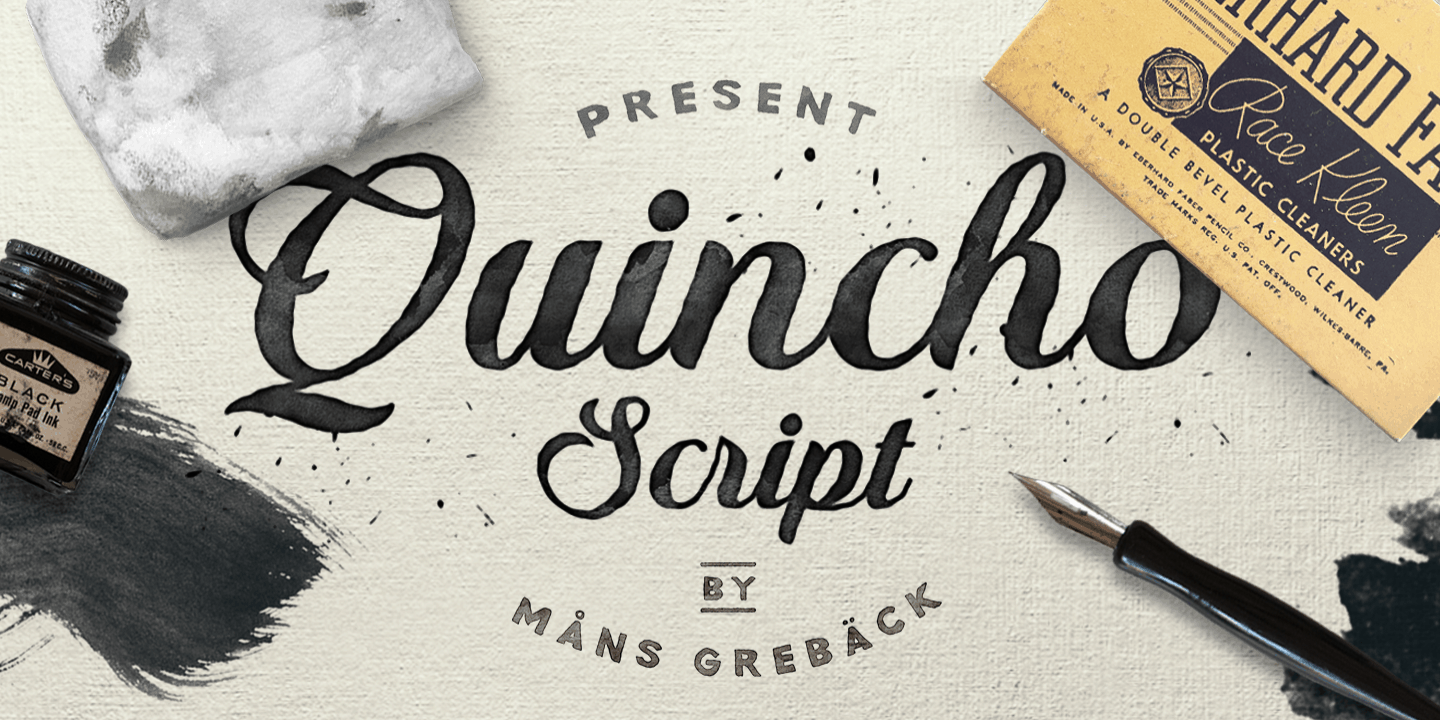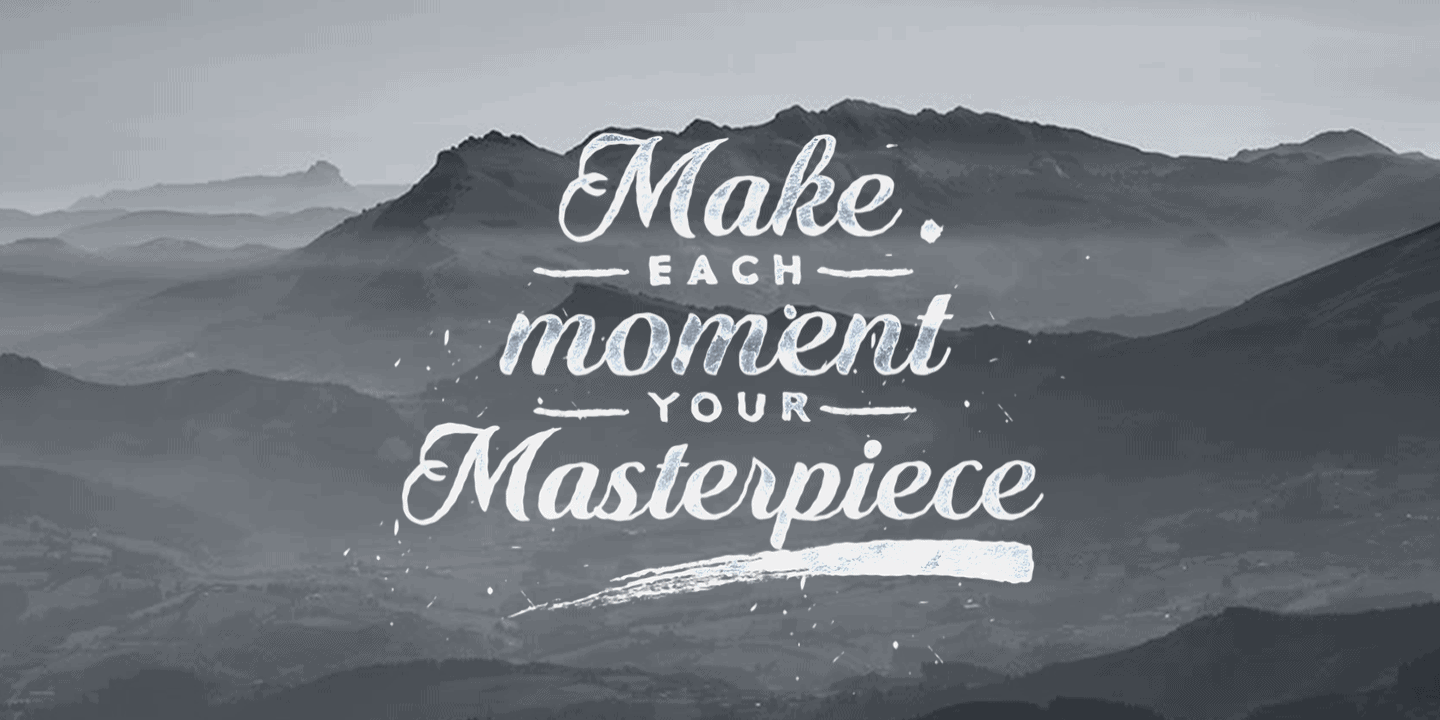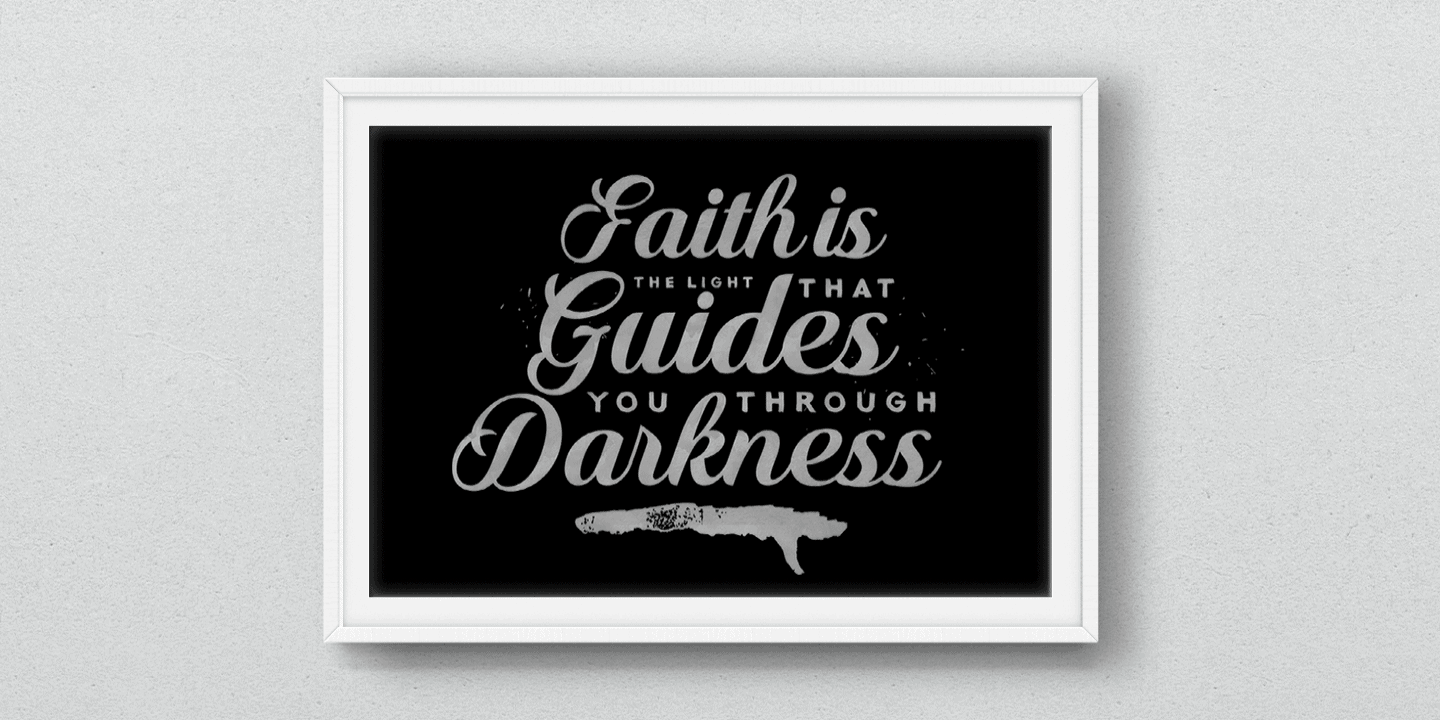
Quincho Script
Quincho Script Poster01
Quincho Script Flag
Quincho Script Poster02
Quincho Script Poster03
A high quality calligraphic font, clean with bold characteristics.
Quincho Script Character Map